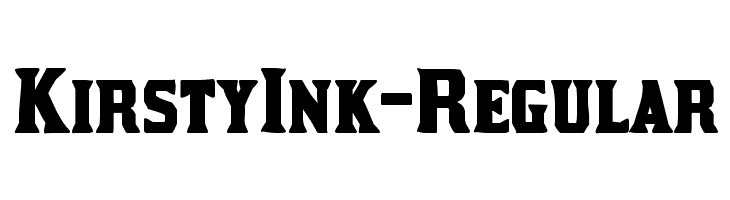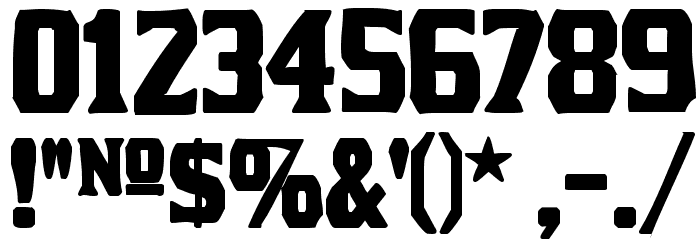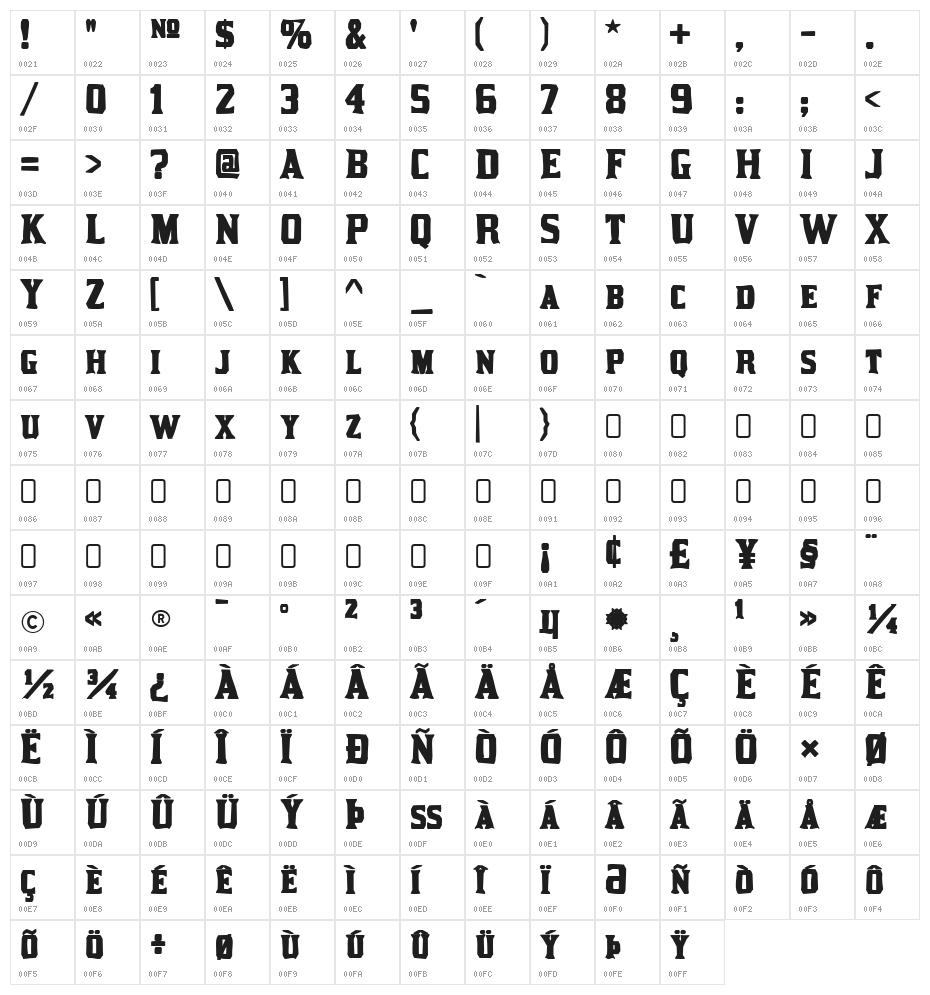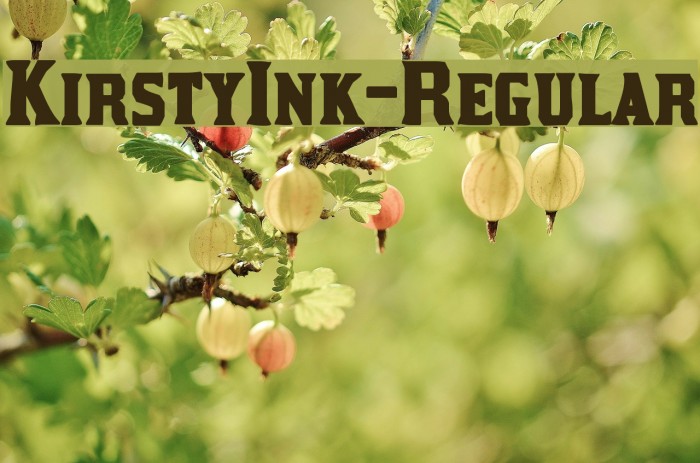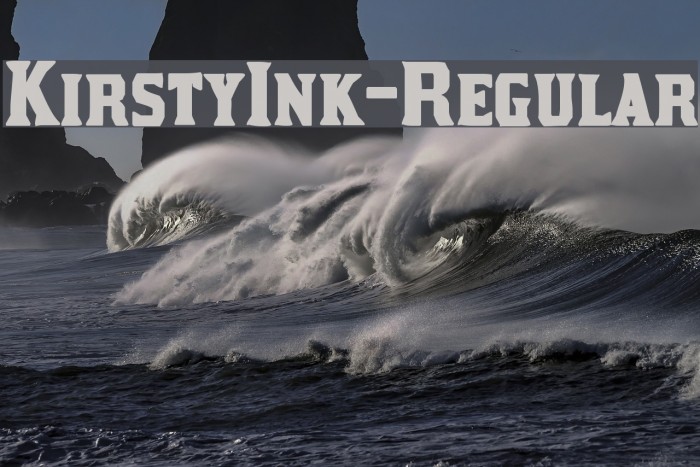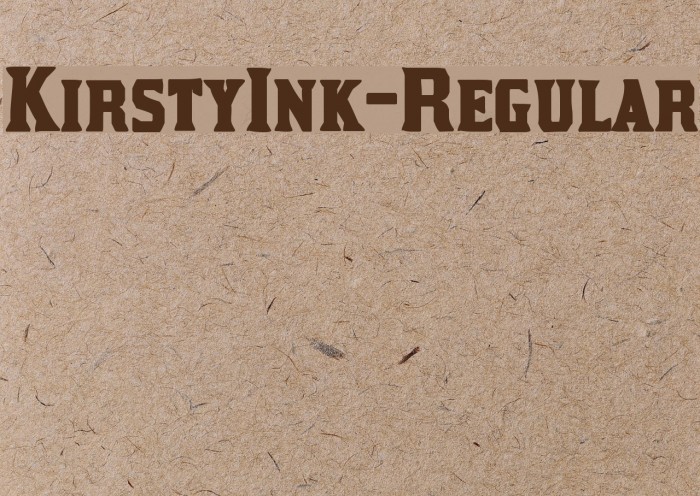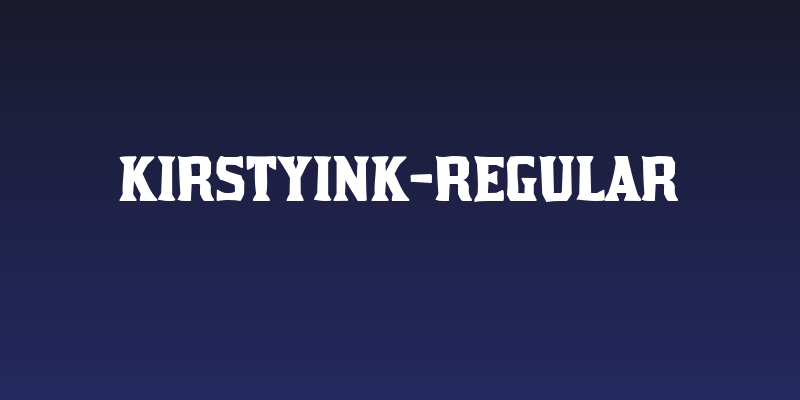
KirstyInk-Regular Font
KirstyInk-Regular Description
This font exhibits a bold and striking design with a strong presence. The characters are robust and angular, featuring sharp edges and a slightly condensed form. The uppercase letters are particularly prominent, making a powerful statement. The numbers and special characters maintain the same boldness, ensuring consistency across all glyphs. The style is reminiscent of vintage or western themes, with a decorative flair that adds uniqueness to each character. The font's weight and structure make it ideal for attention-grabbing headlines or titles.
| Proposed Projects | Ideal for posters, branding, logos, and any project requiring a strong, vintage aesthetic. |